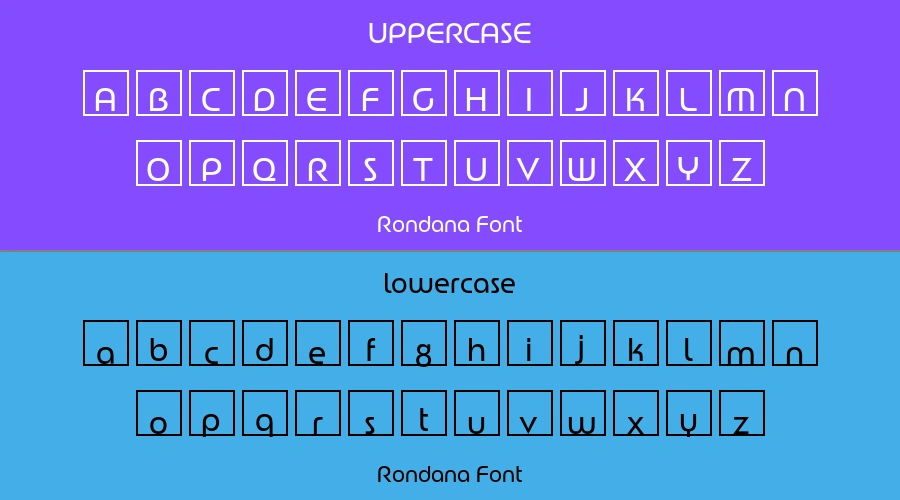
About Rondana Font
Designed with precision, Rondana Font merges ink traps with system consistency in every character. This versatility makes it particularly effective for magazine layout, where consistency and industrial strength directly impact communication quality. Each letterform demonstrates meticulous craftsmanship.
Technical excellence shines through elements like graceful transitions and case-sensitive forms, enhancing typographic versatility. In promotional materials settings, Rondana Font proves its worth through superior reliability. The thoughtful execution of joint detail and user perception ensures professional results.